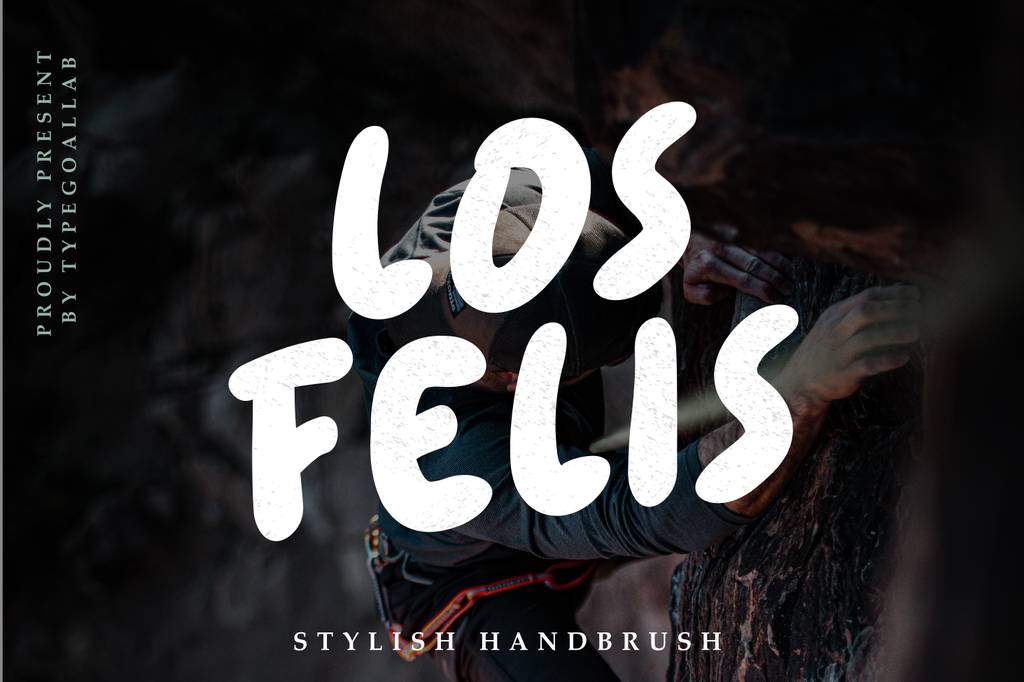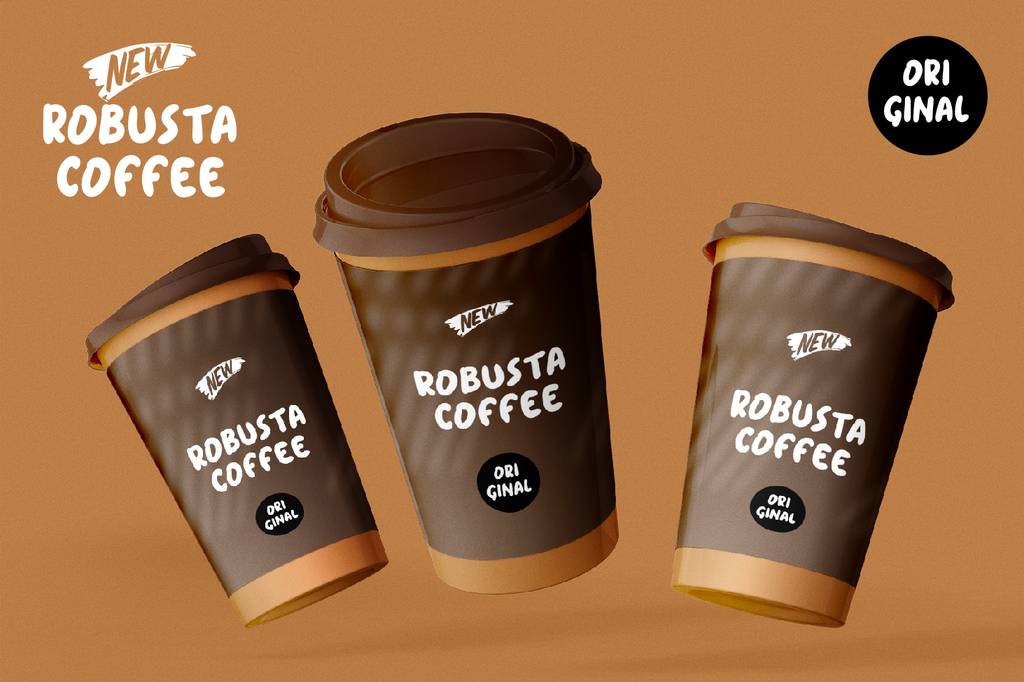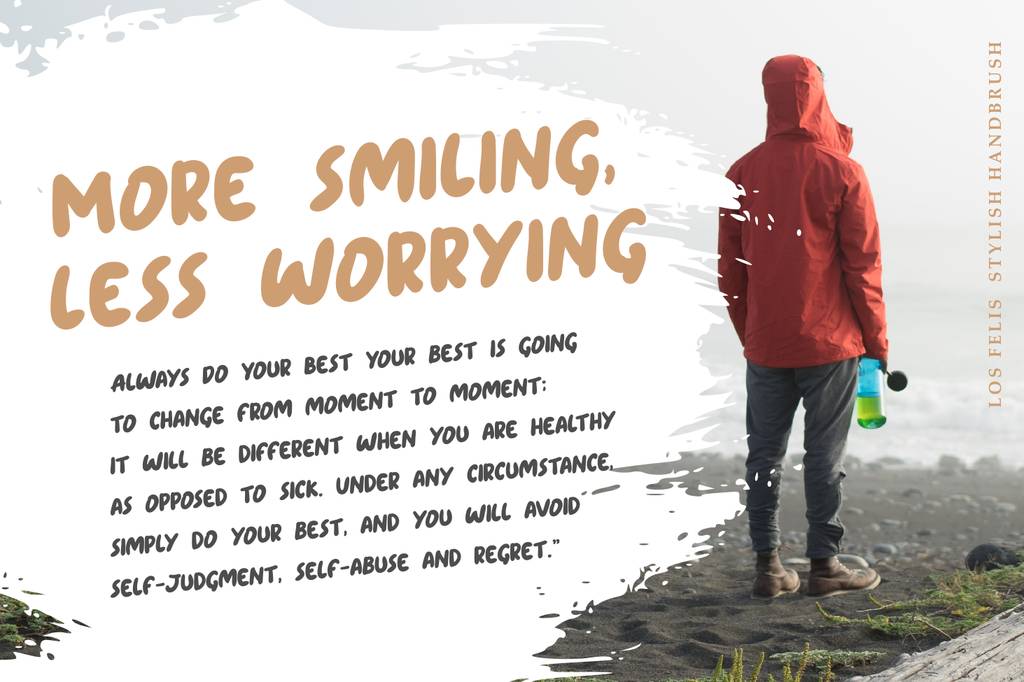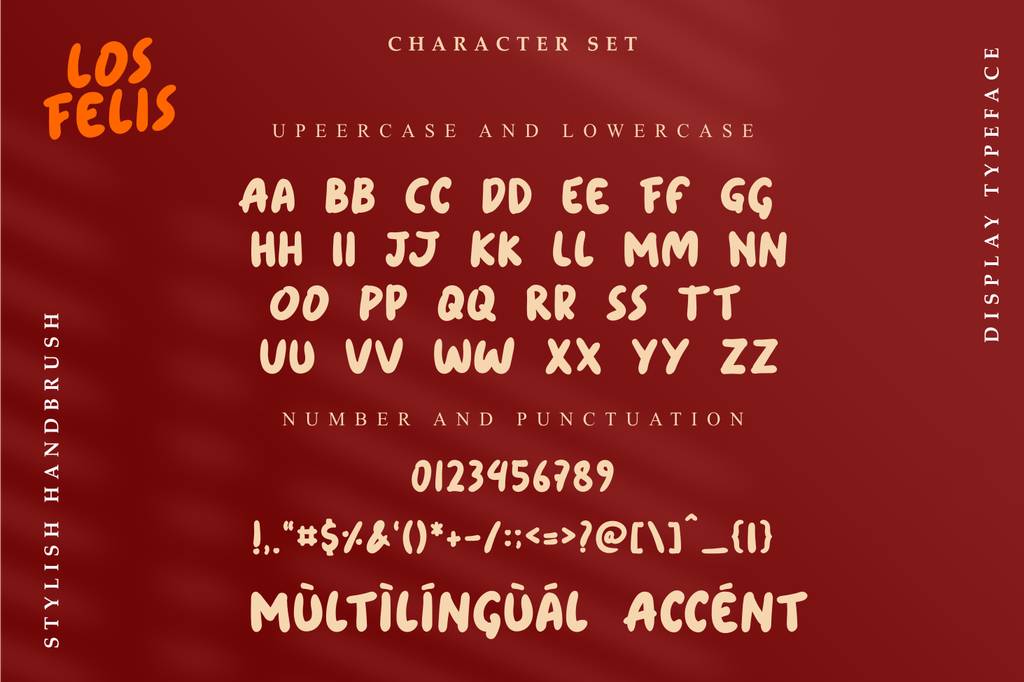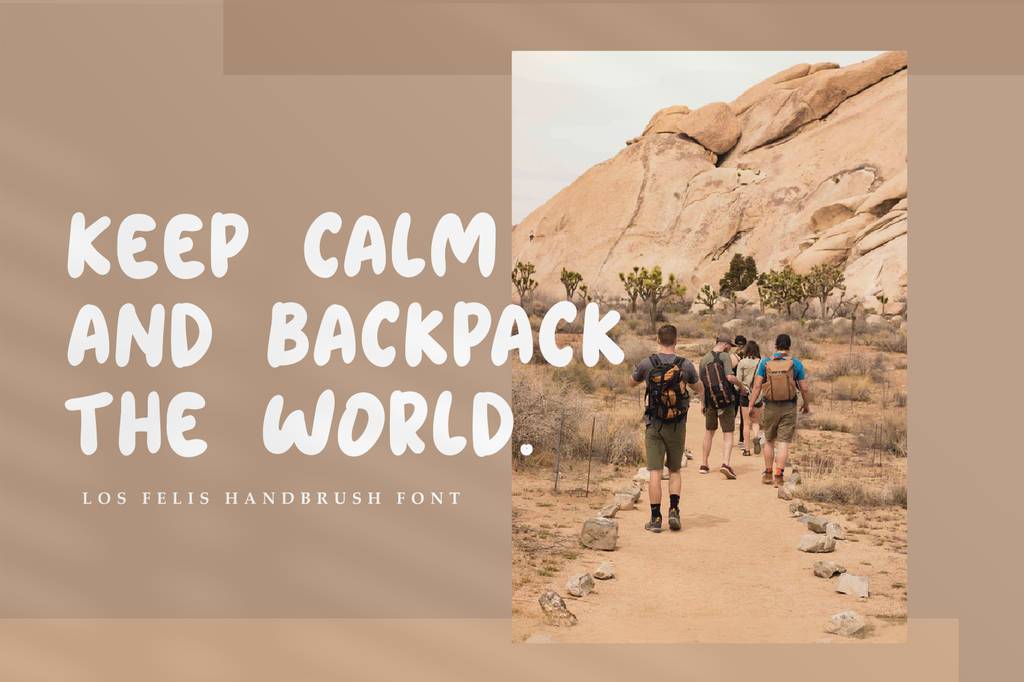
Los Felis is a playful, bold sans serif font with a hand-drawn, casual style that feels friendly and approachable. Its rounded, chunky letterforms create a warm and inviting look, making it perfect for informal branding, children’s products, posters, or any design seeking a fun and lively vibe. This font works well in headlines or short texts where a personal, energetic touch is desired.
Los Felis Font
About Los Felis Font
| Font family | Los Felis Font |
| Designer | Typegoals labs |